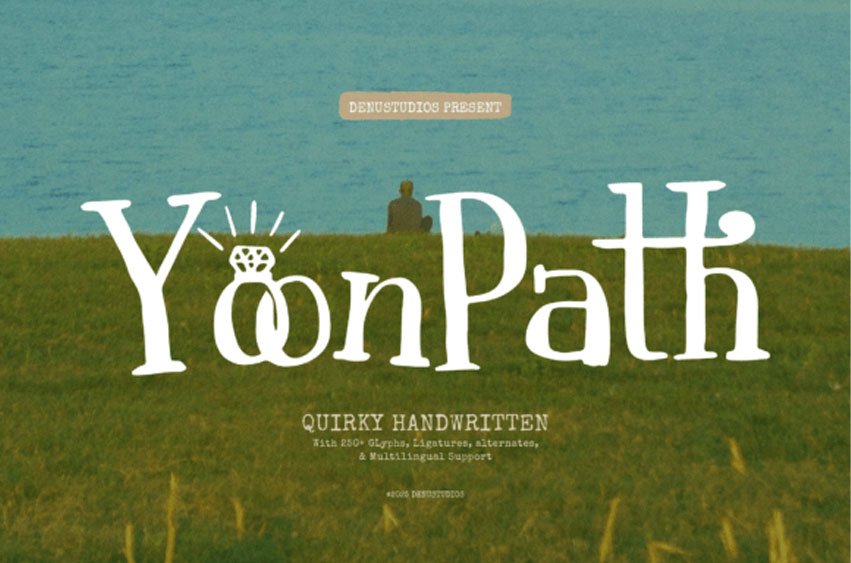
Yoon Path Font
Yoon Path Font is a quirky handwritten font, suitable for any projects such as: logos, branding projects, homeware designs, product packaging, mugs, quotes, posters, shopping bags, t-shirts, book covers, name card, invitation cards, greeting cards, label, photography, watermark, special events, and all your other lovely projects that need a Quirky Handwritten taste.